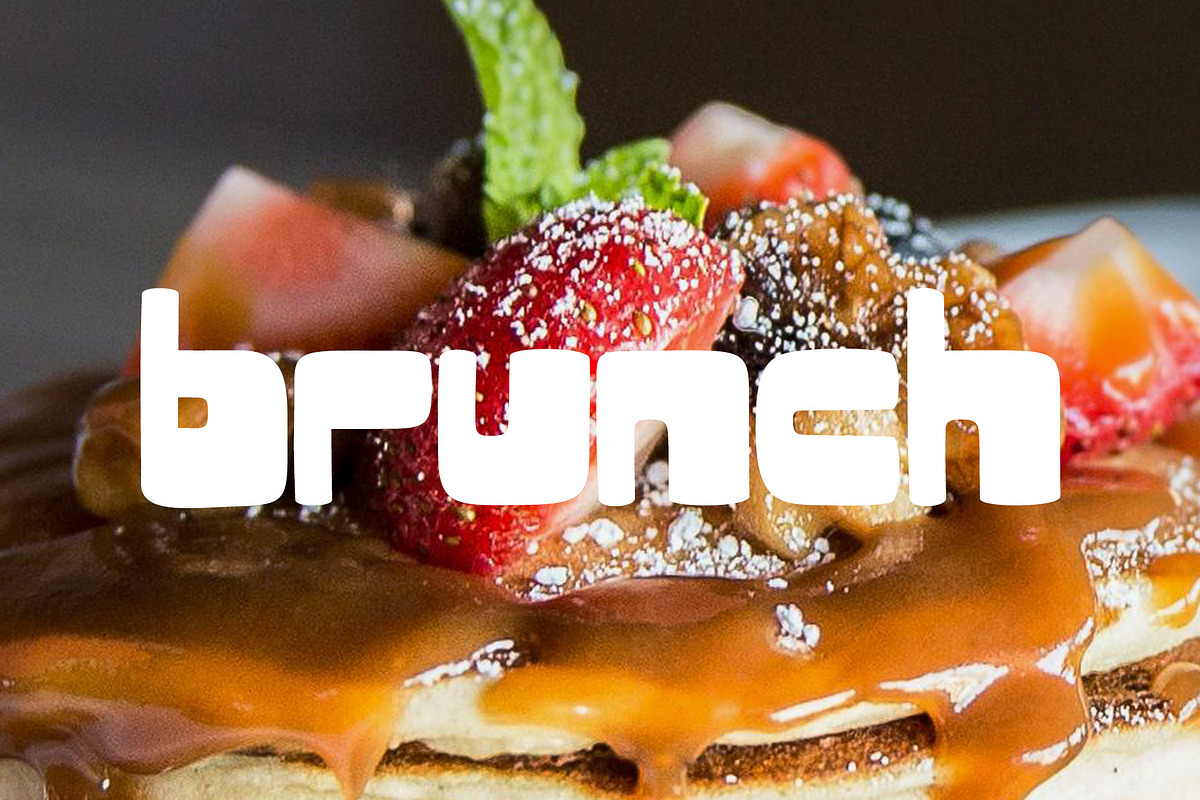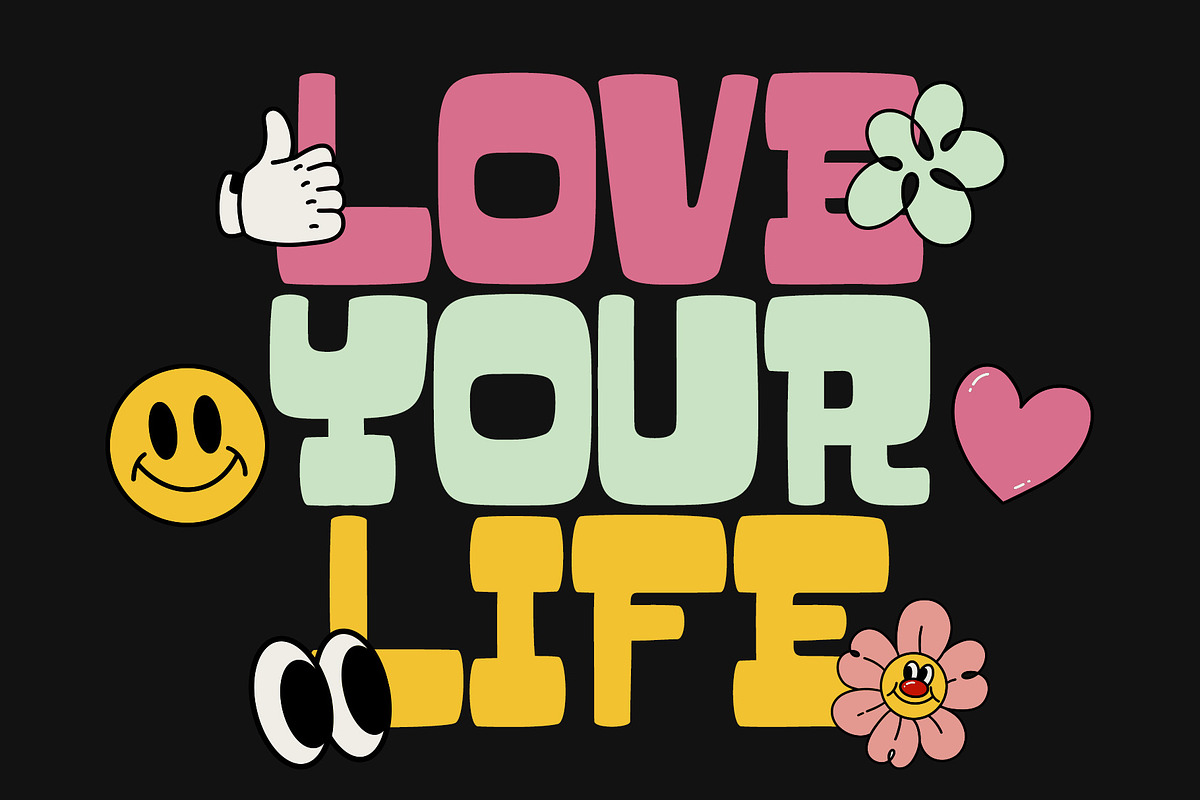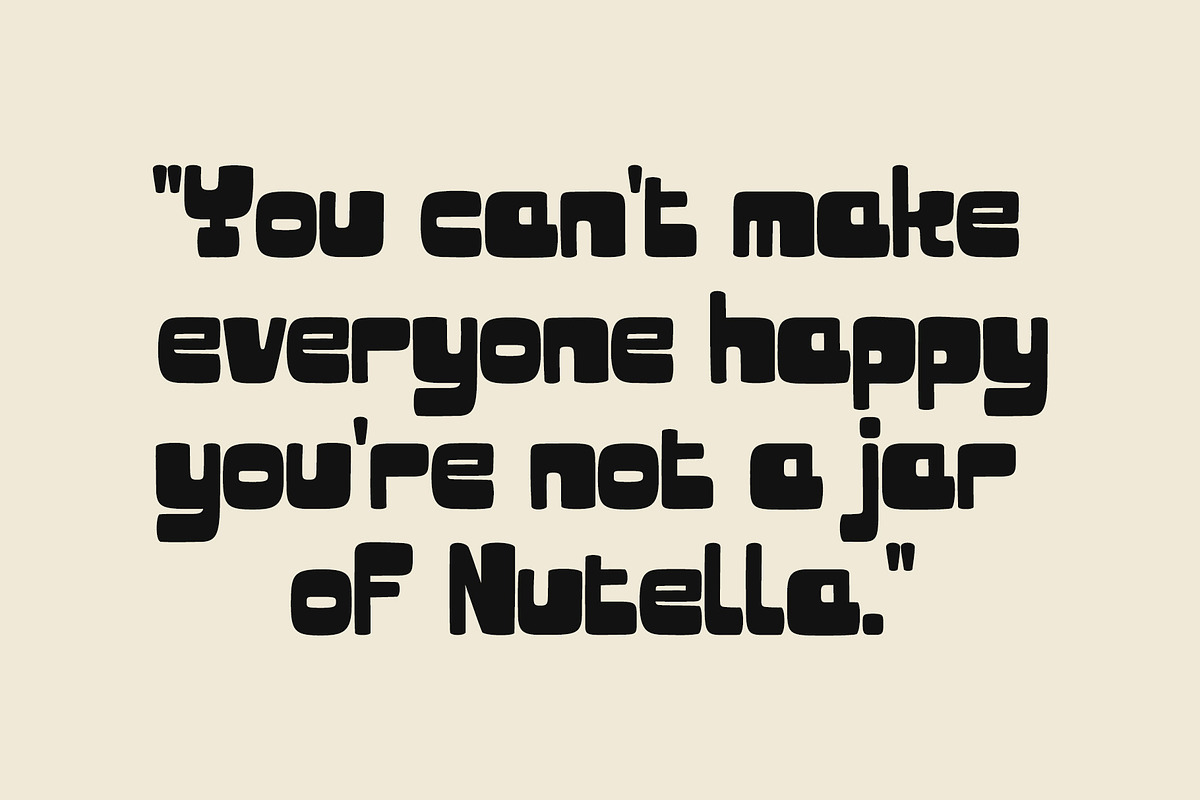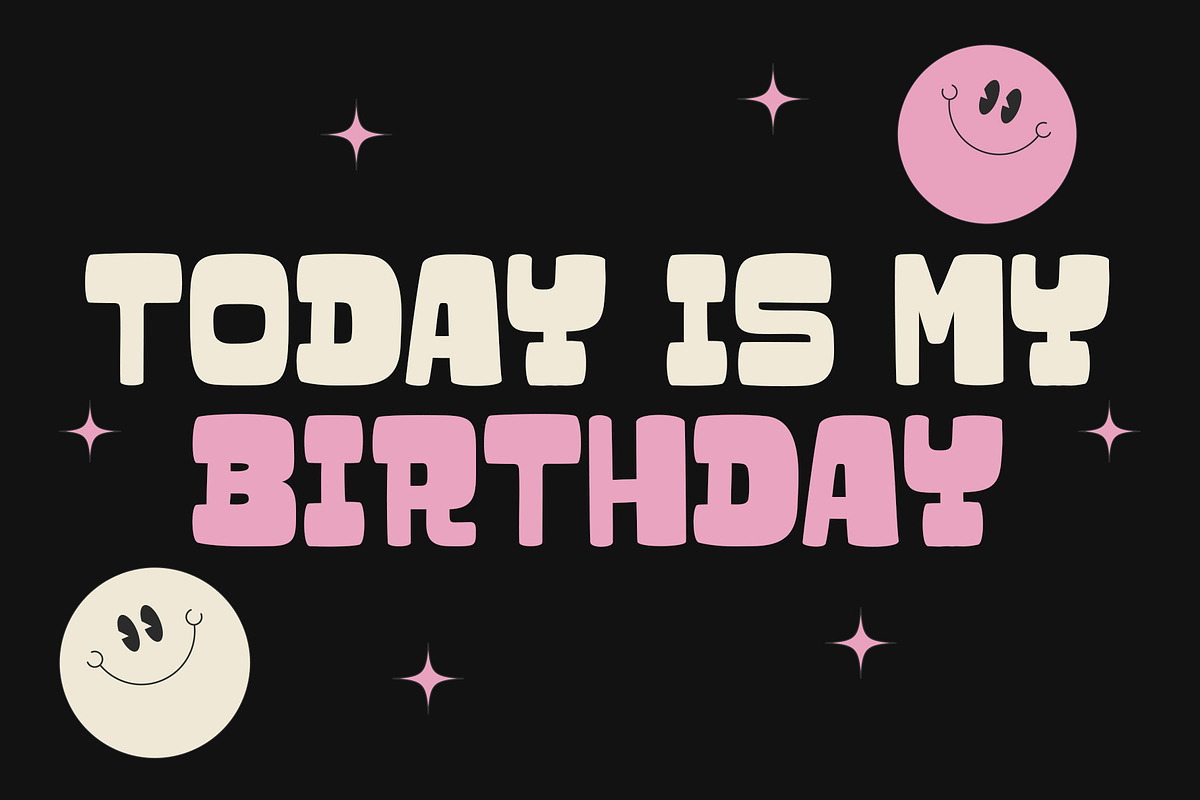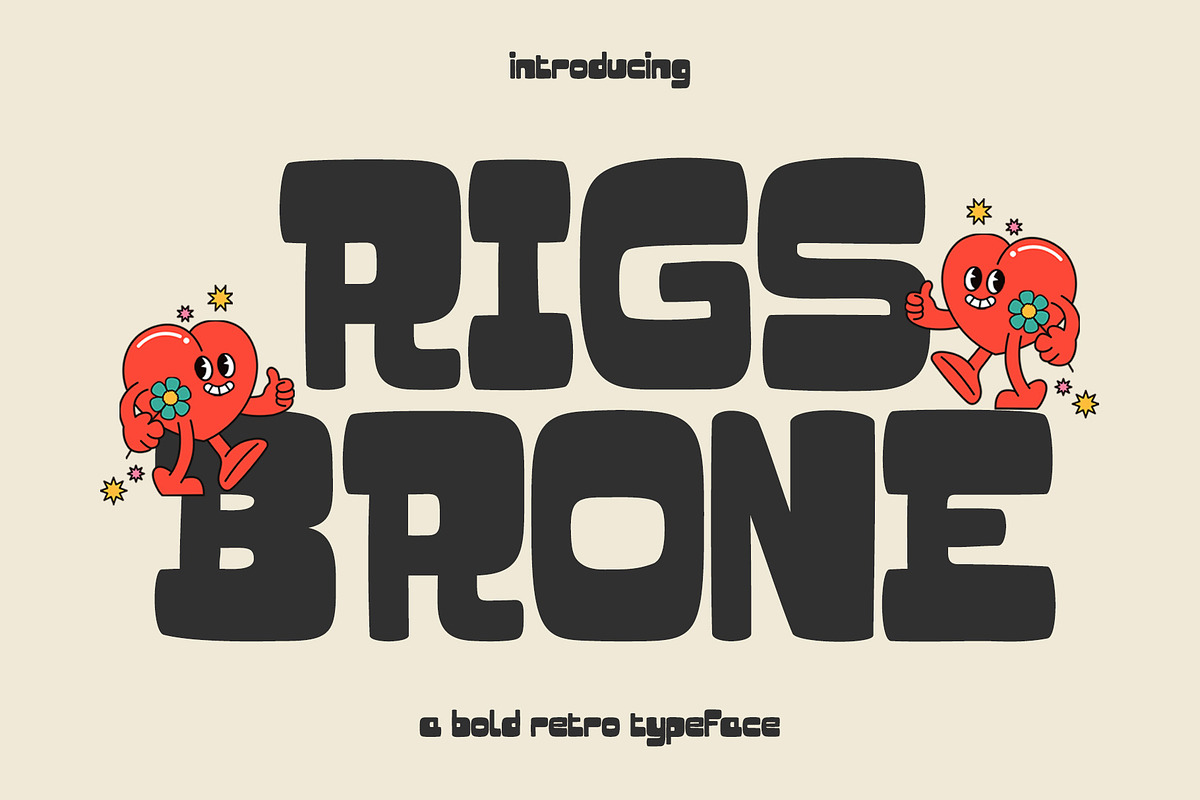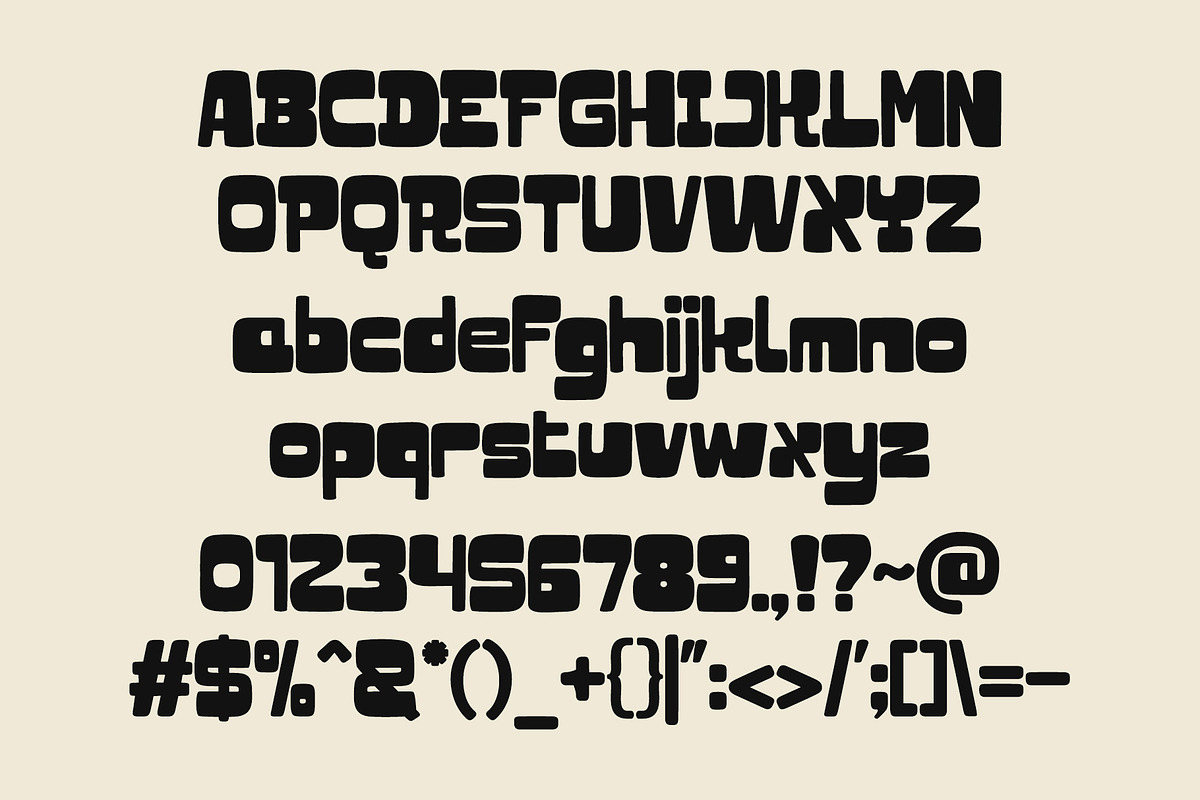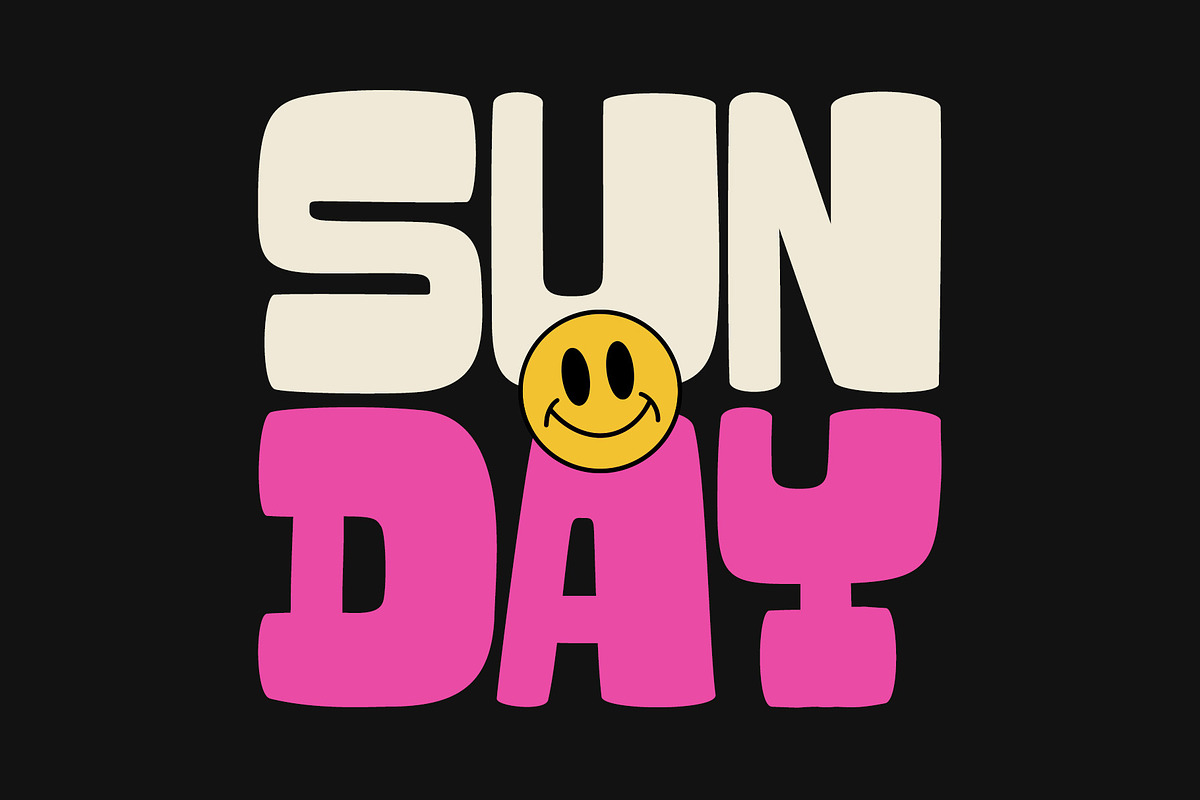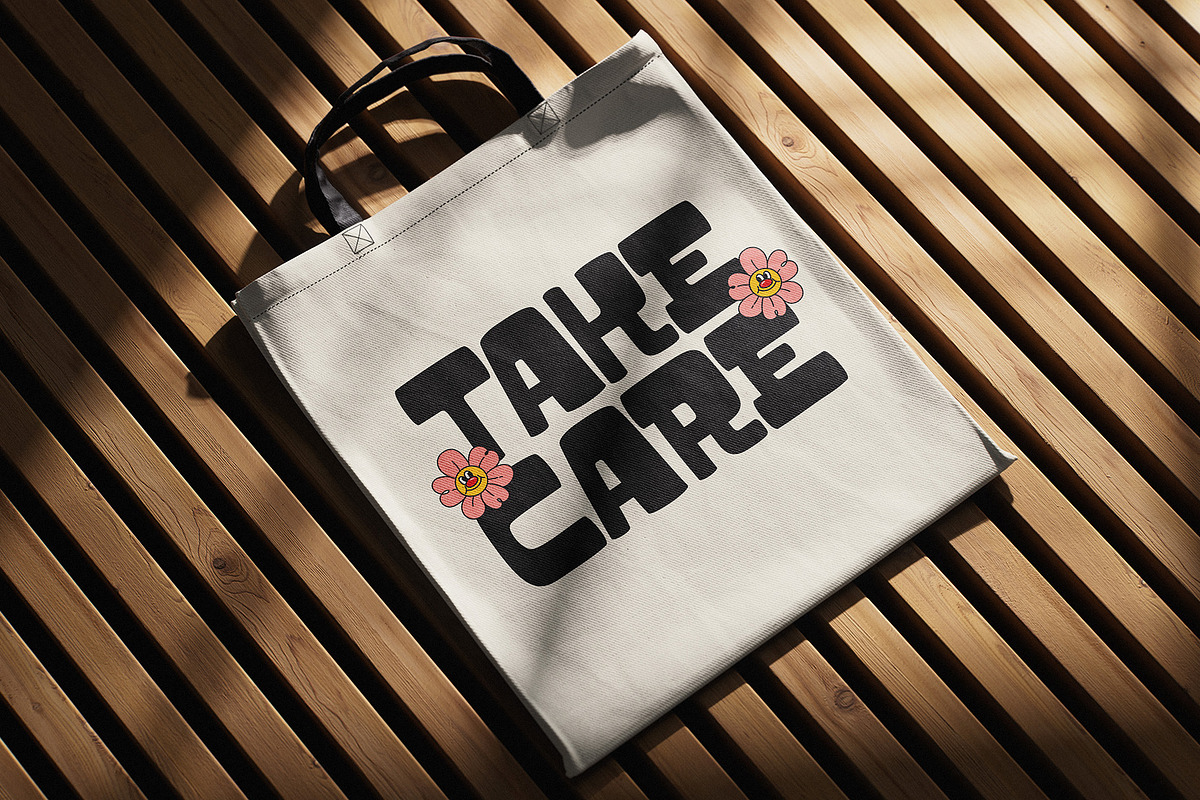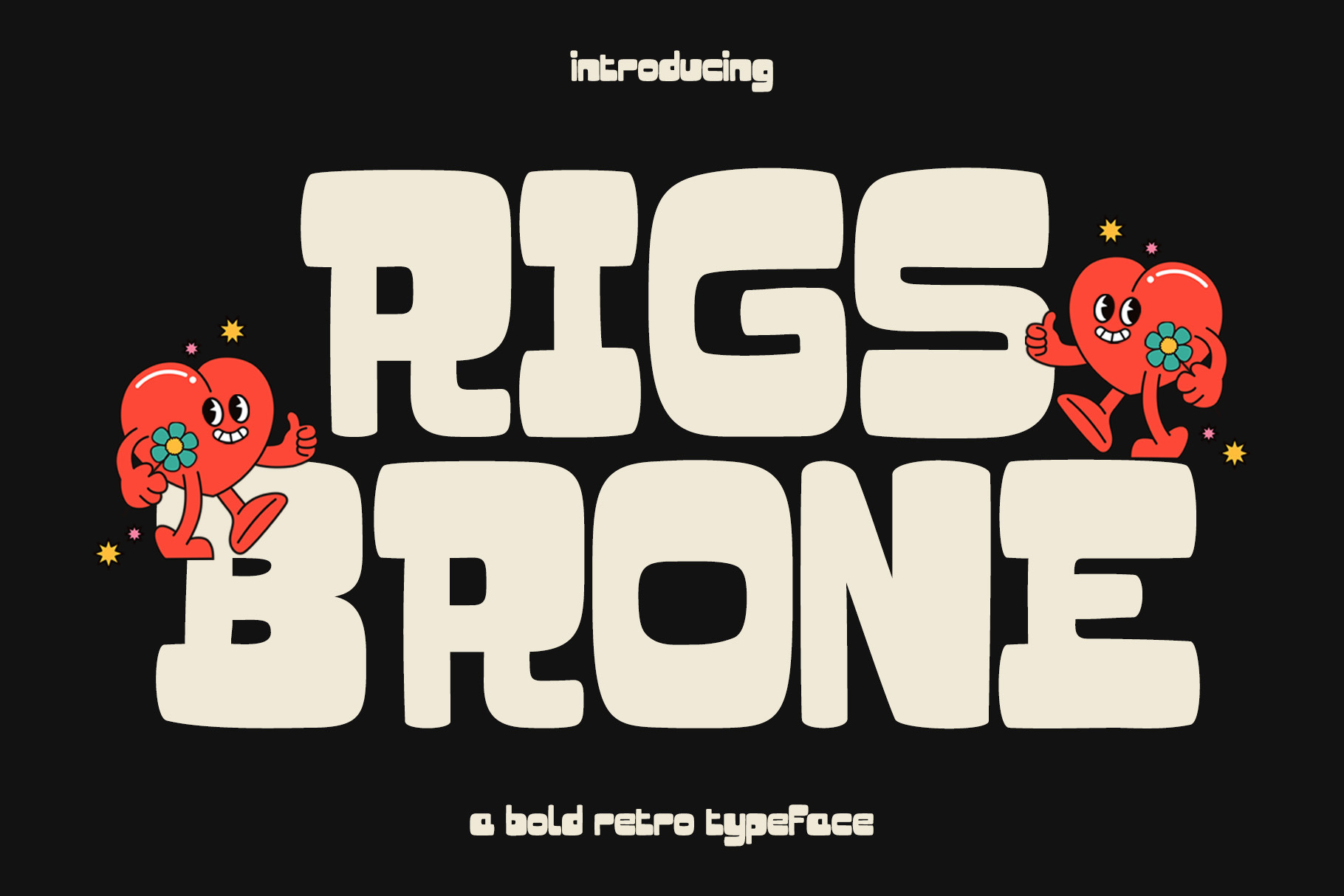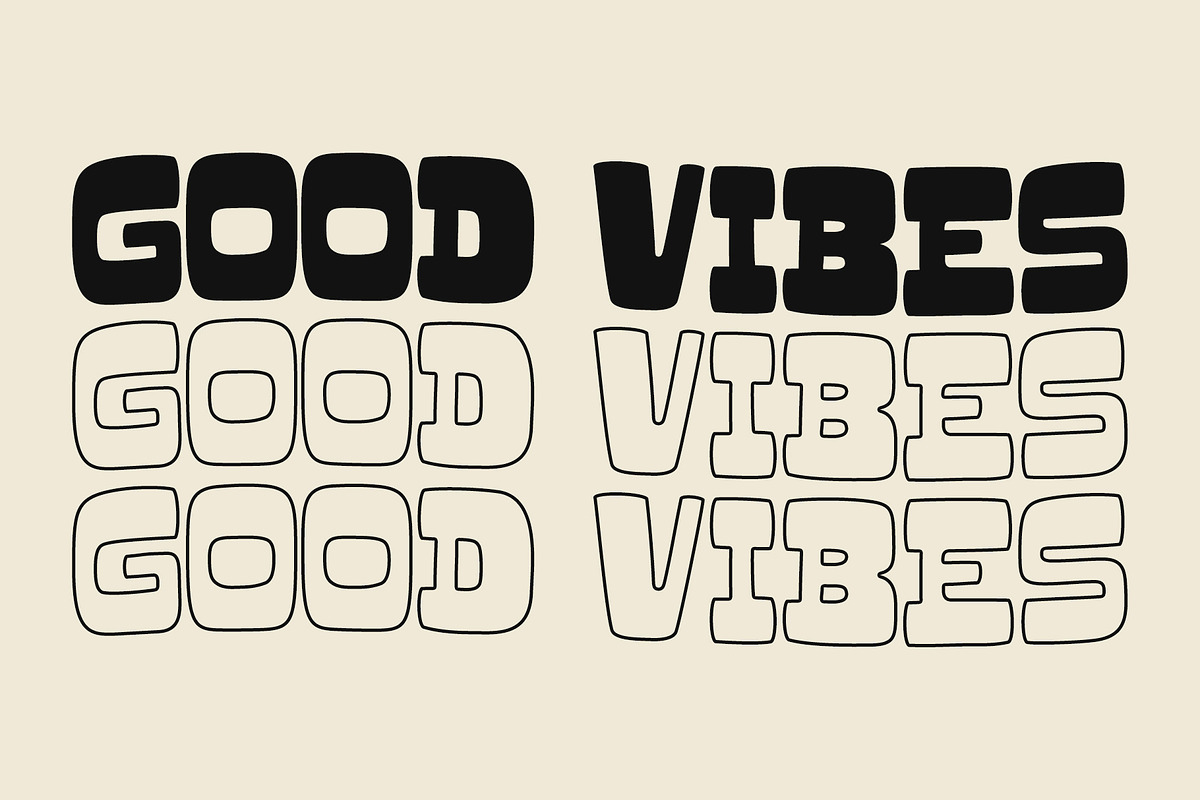
Rigs Brone | Retro Vintage Font
Rigs Brone is a retro vintage font that brings back the golden era of design with a modern twist. Inspired by the aesthetics of the 70s and 80s, this typeface combines strong curves, bold letterforms, and nostalgic charm perfect for branding, posters, headlines, packaging, and anything that craves a groovy character.
Whether you're designing for music, fashion, editorial, or lifestyle brands, Rigs Brone gives your project a warm, stylish, and timeless look.
Uppercase & lowercase
Let your typography dance with nostalgia. Rigs Brone is here to bring the groove.